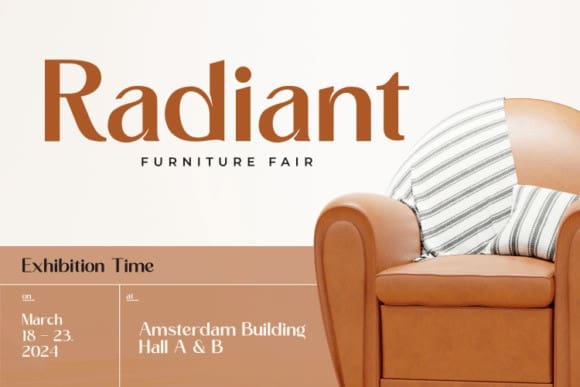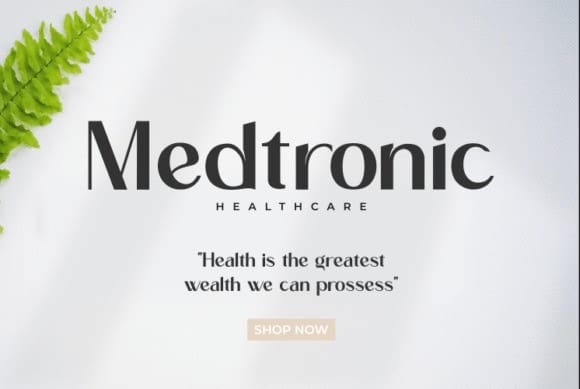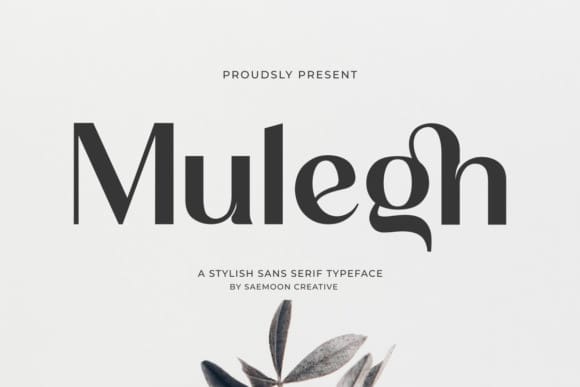
Mulegh Font
Mulegh Font is a full-featured sans-serif font, with distinctive characteristics in each letter that can add a more stylish impression to your designs. Mulegh Font is a simple and stylish font that imparts a sense of luxury to every design. It is crafted with ligature and alternate options, making it easy for you to create works that exude luxury and charm. Mulegh is versatile and suitable for various design projects, including logos, brand identity, product branding, web displays, advertising pamphlets, and more.